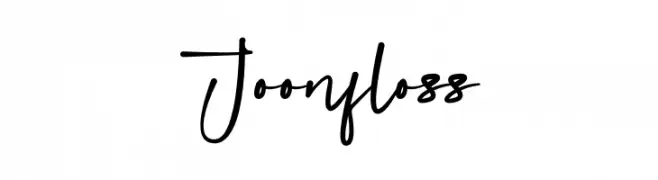
( Fonts by Letterhend Studio )
Bold, modern handwritten script font.
( Fonts by Origin Type )
Bold, playful, and bubbly font.
( Fonts by Prioritype Co )
Bold, decorative font with a playful, retro style.
( Fonts by Jadatype )
A lively, handwritten script with fluid, connected strokes.
( Fonts by The Scriptorium - Dave Nalle )
An ornate script font with elegant swirls and flourishes.
( Fonts by Klaus Johansen - www.listemageren.dK )
An intricate and decorative font with historical flair, featuring elaborate swirls and flourishes.